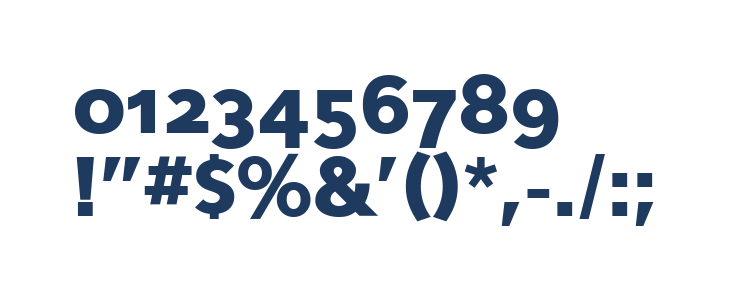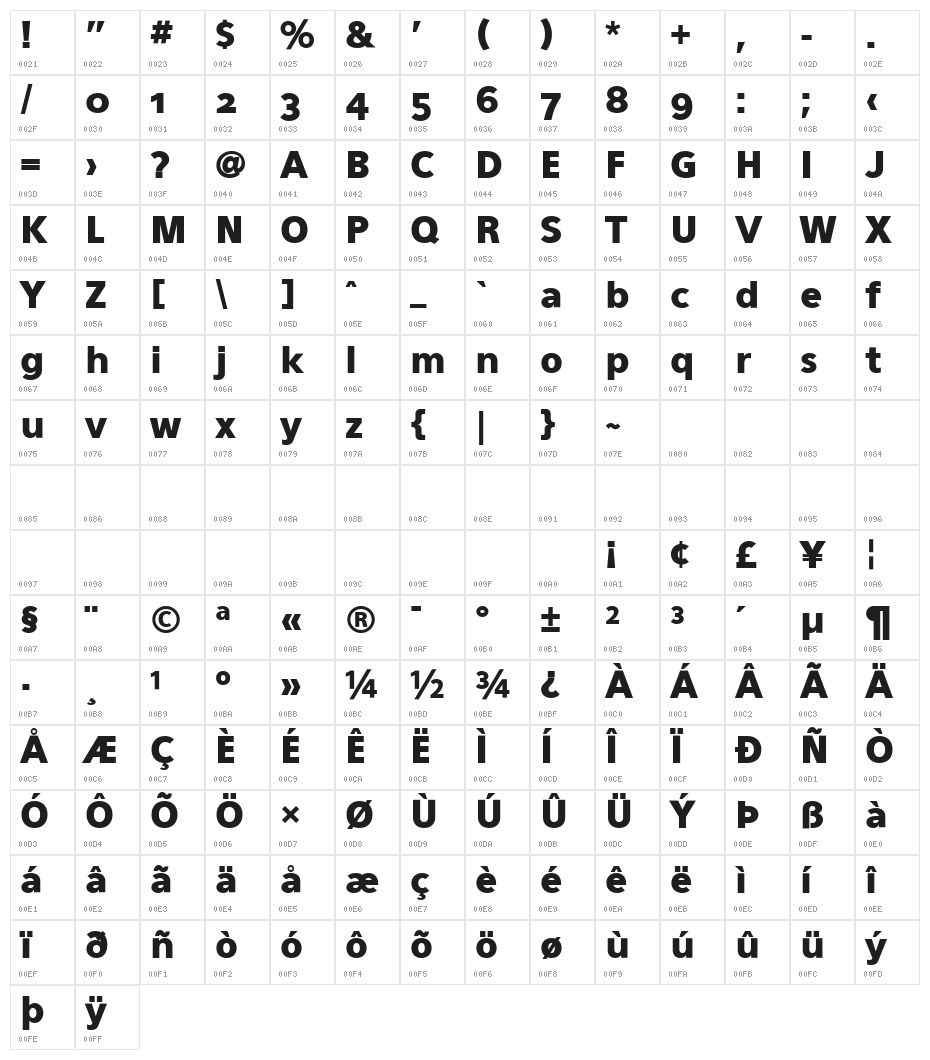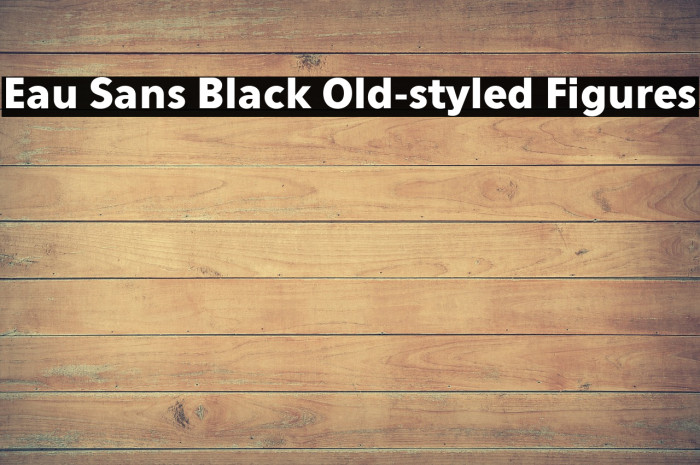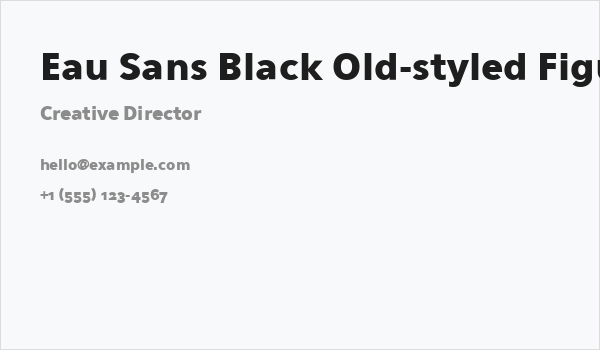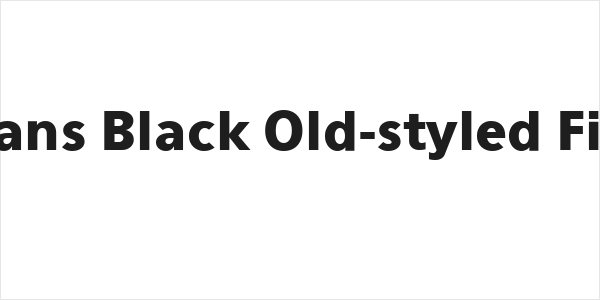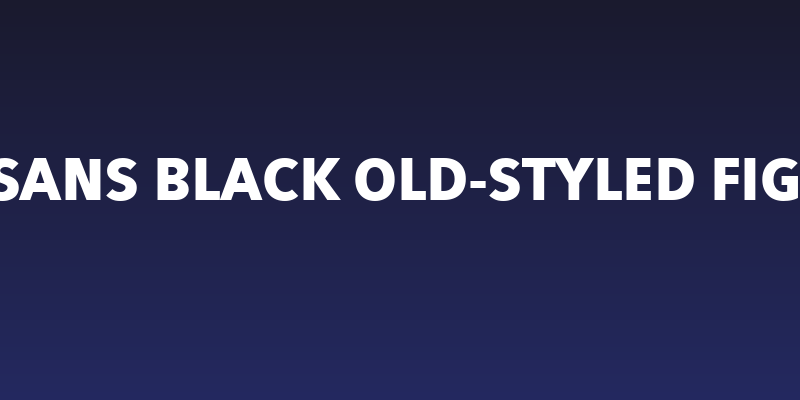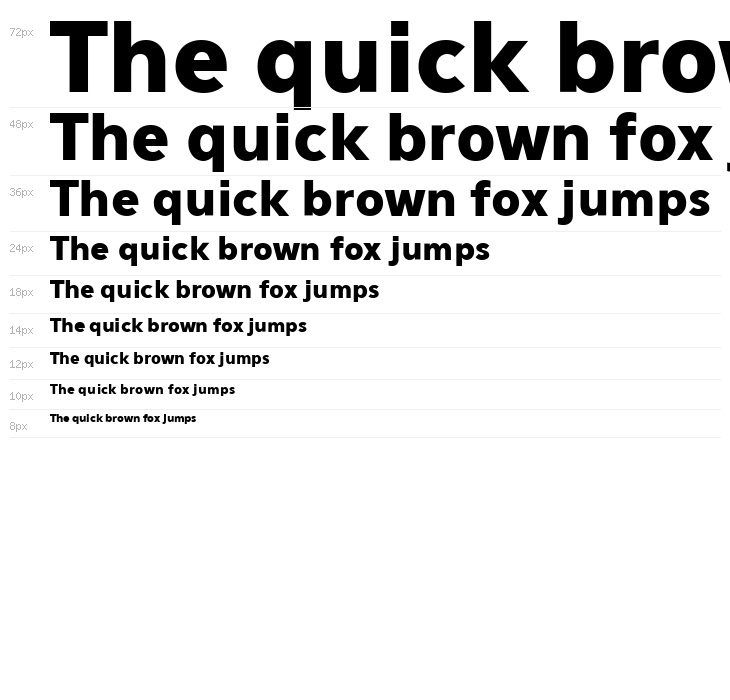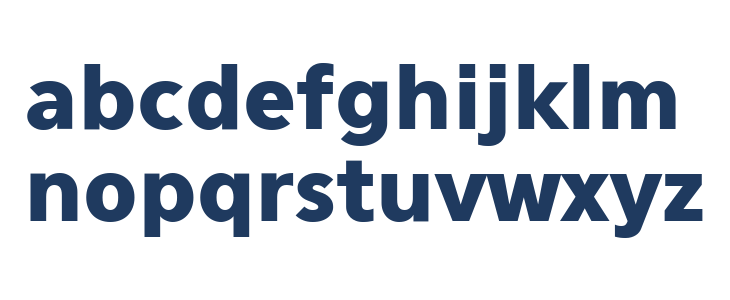
Eau Sans Black Old-styled Figures Font
Eau Sans Black Old-styled Figures Description
This font exhibits a bold and modern sans-serif style with clean, geometric lines and a strong presence. The characters are well-proportioned, offering a uniform appearance that enhances readability. The uppercase and lowercase letters maintain a consistent weight, contributing to a cohesive look. The numerals are clear and distinct, making them suitable for various applications. Special characters are designed with the same boldness, ensuring they stand out effectively. This font's overall design is versatile, making it suitable for both digital and print media.